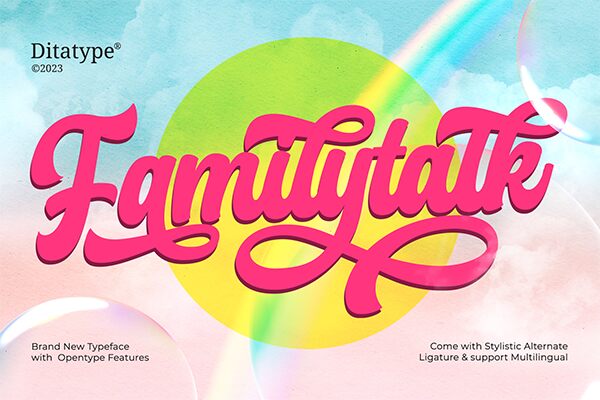
Familytalk font by Ditatype is a free brush font that speaks in elegance and style. Words flow beautifully with its natural vintage-inspired characters for a highly expressive writing experience. A bold design like this is prepared to capture the attention of large crowds with distinctive stylized handwriting.
Labeling products, designing logos, adding book titles to your covers, and presenting branding designs can all be done with Familytalk. Create apparel items including t-shirts and hoodies or decorate digital ones like business cards and flyers.